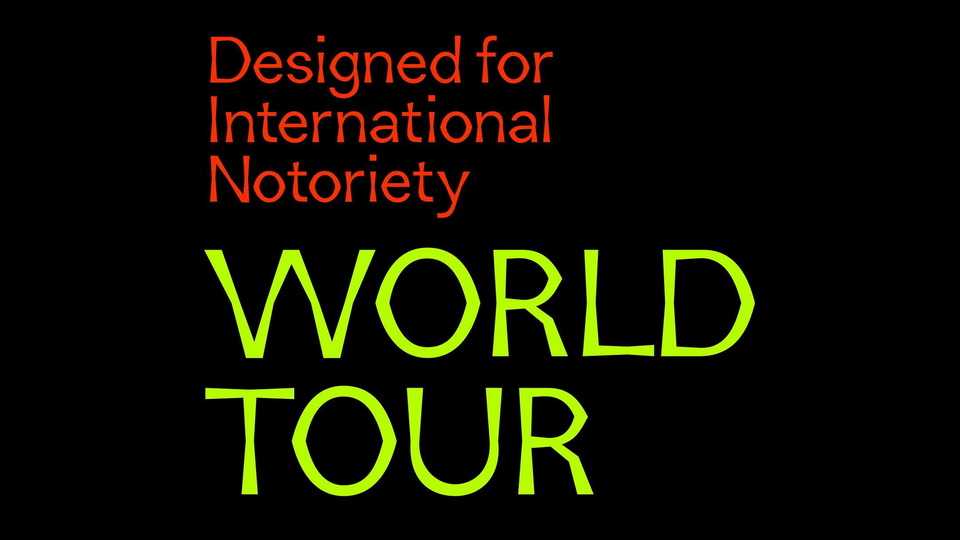
Download World Tour font, a display typeface designed for International Notoriety. Inspired by bell bottom jeans, World Tour font features flared stems, rounded corners taped into sharp geometric points.